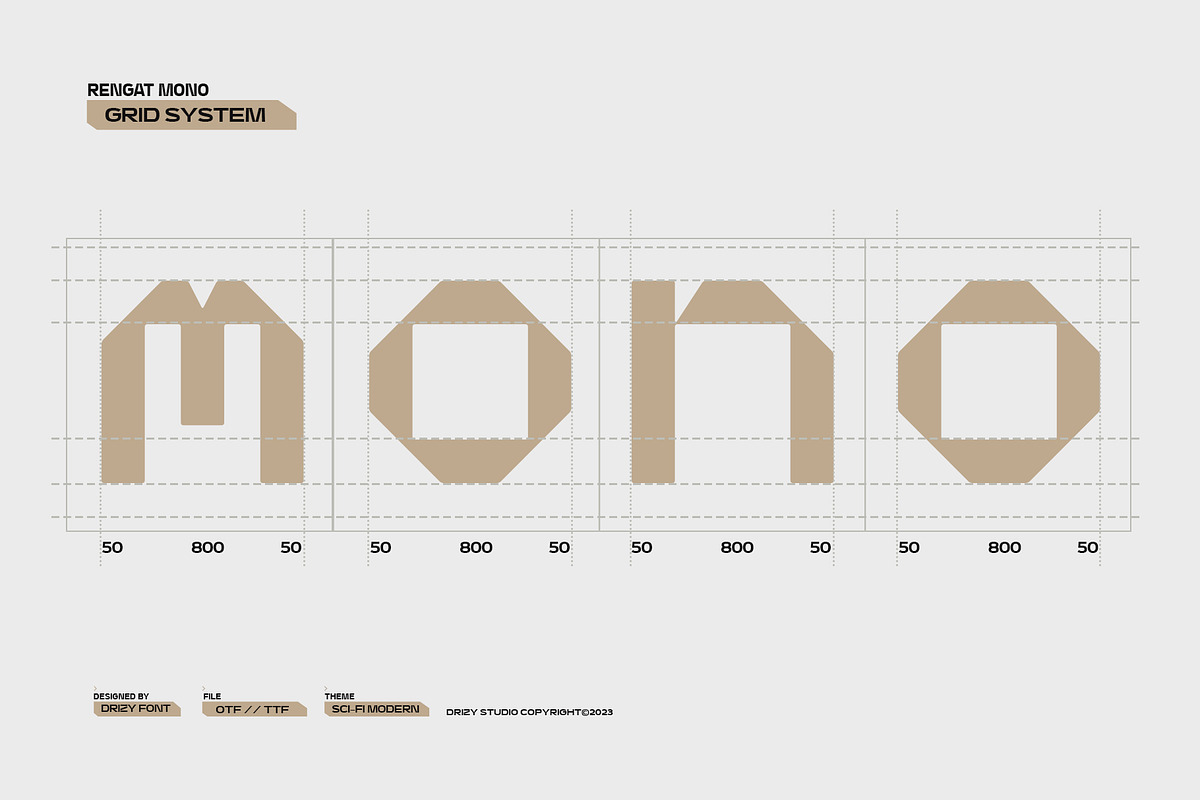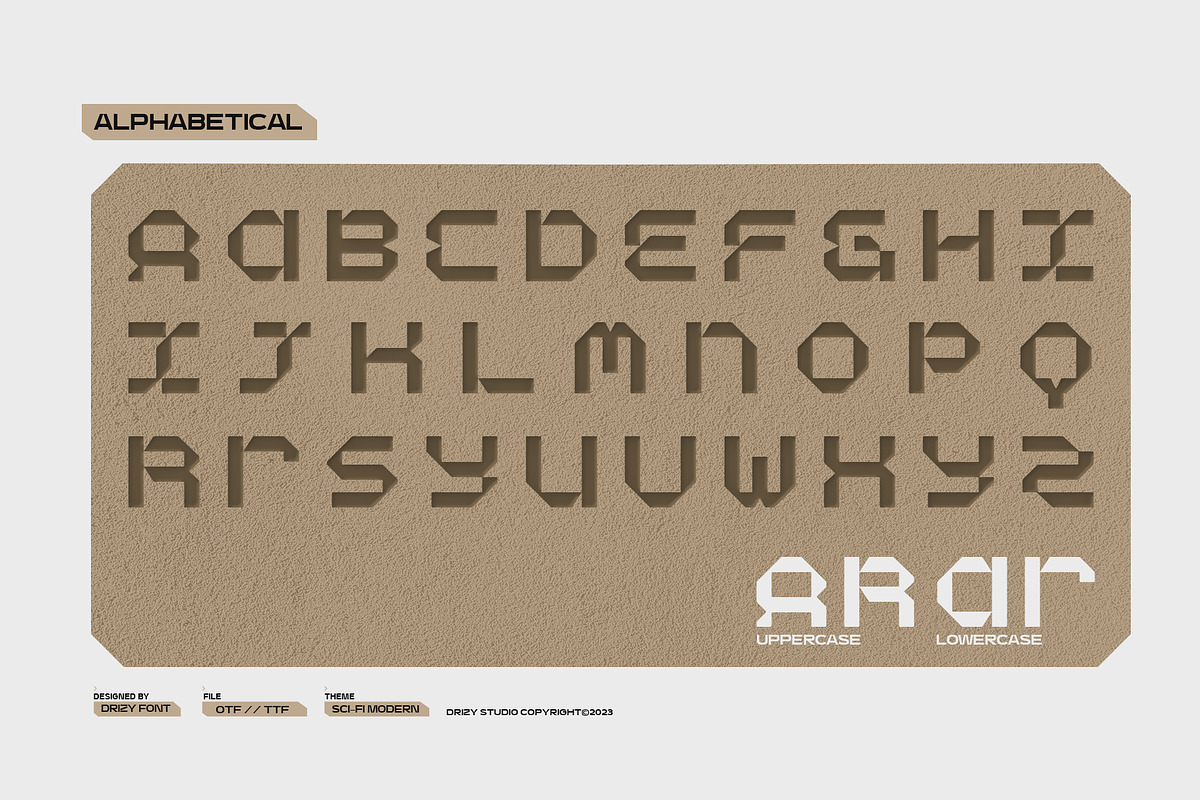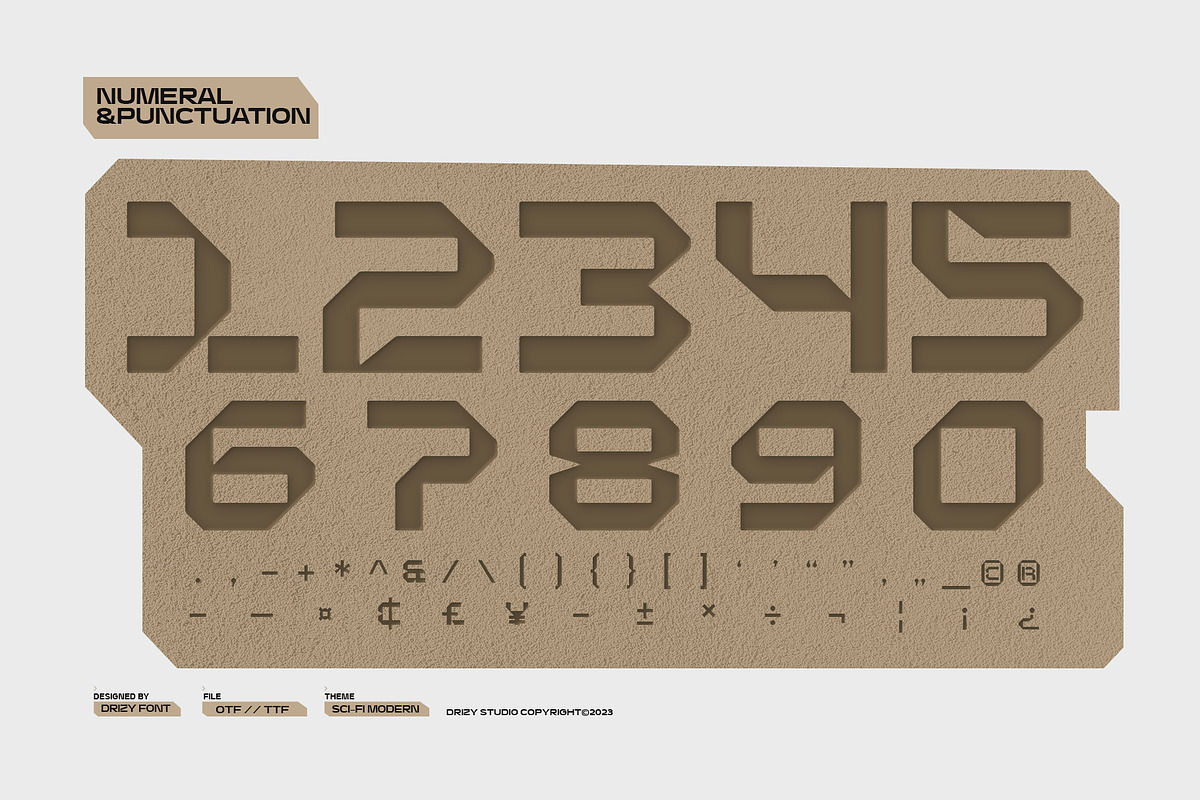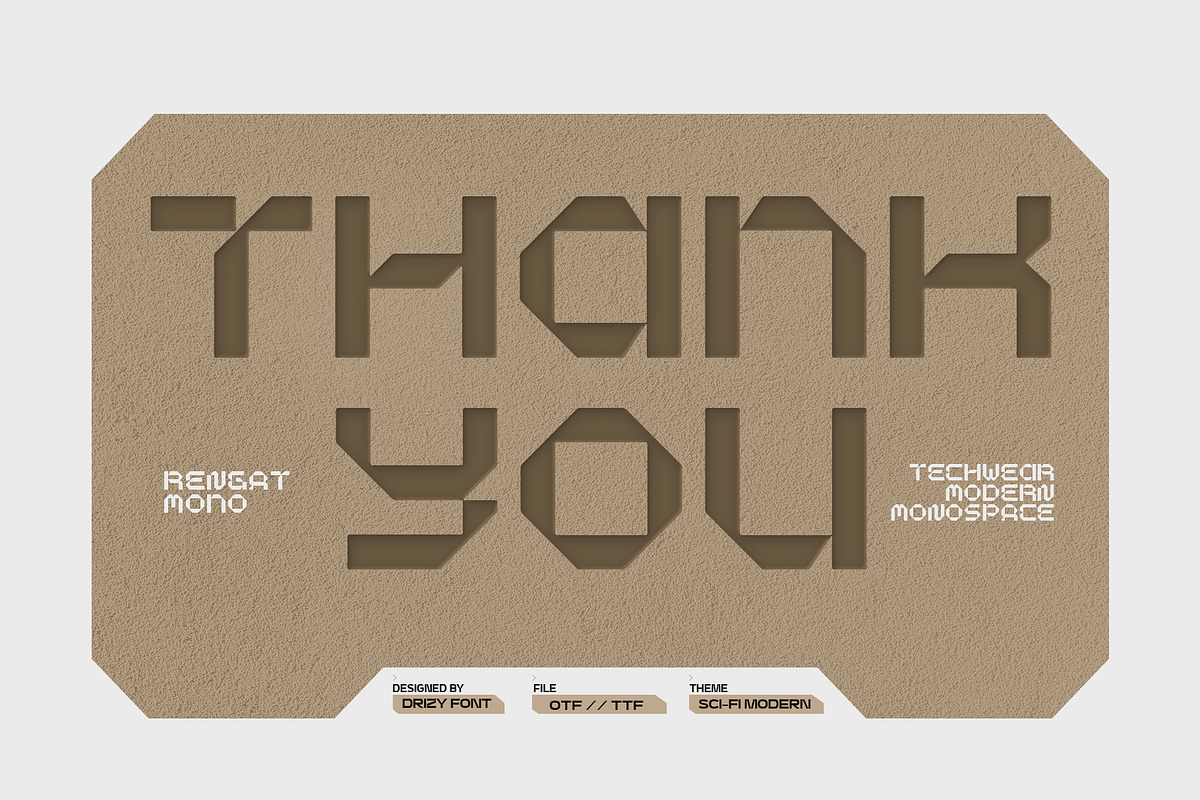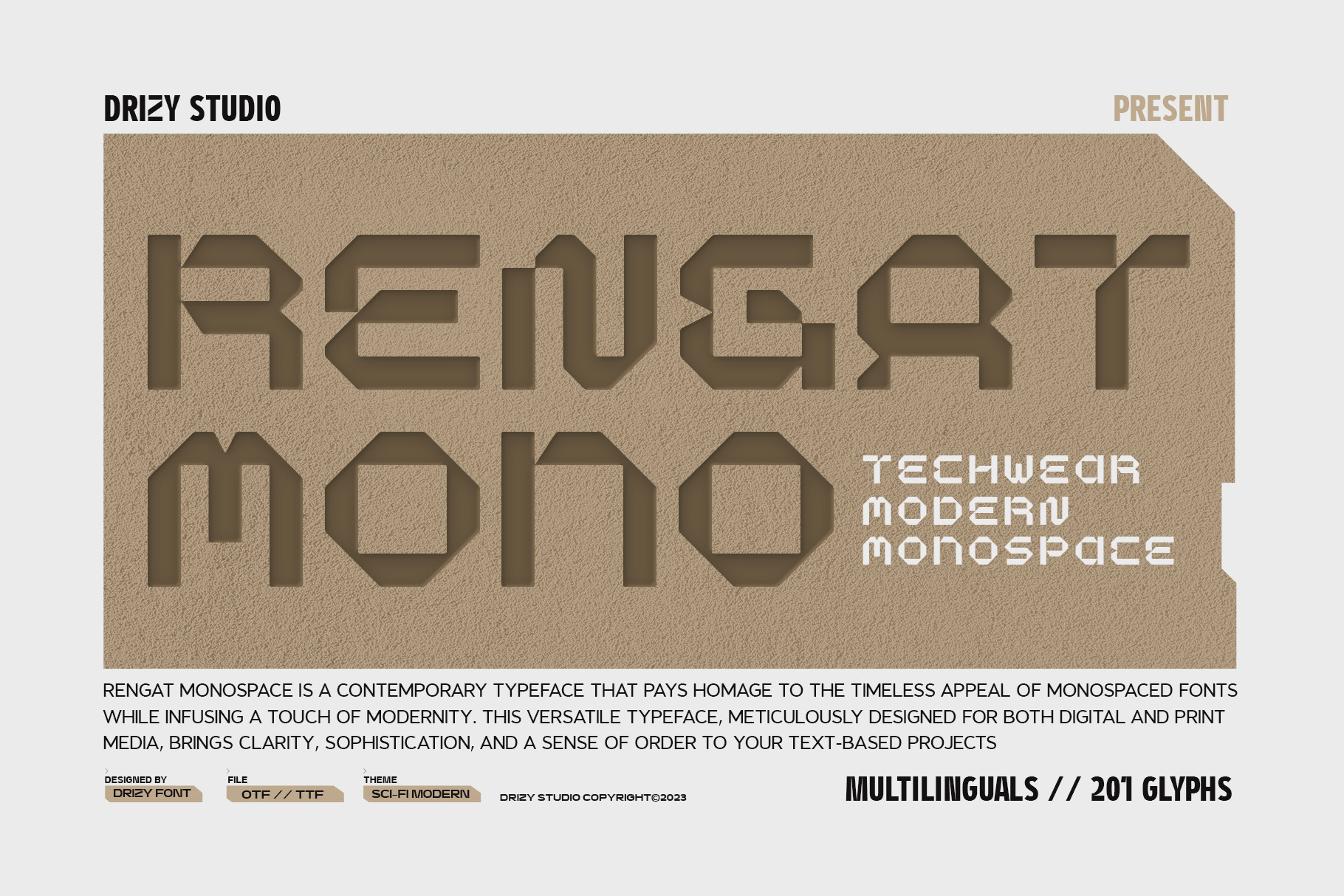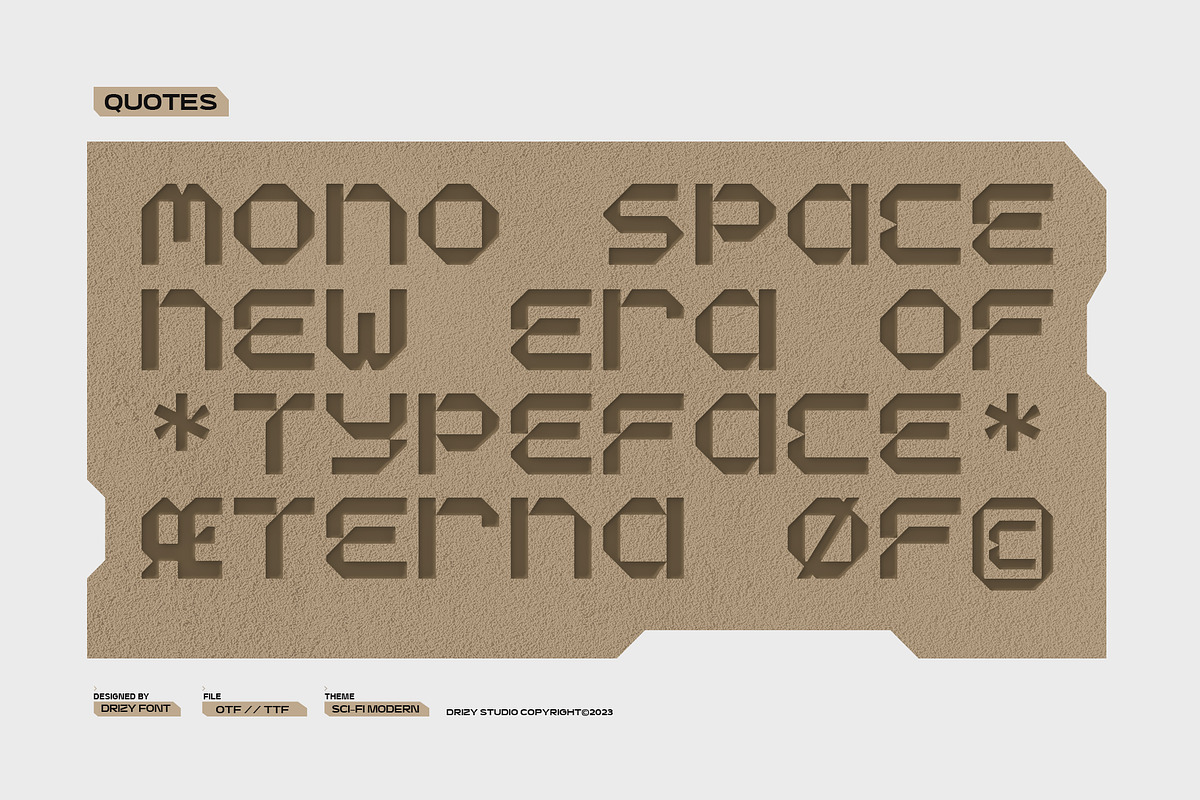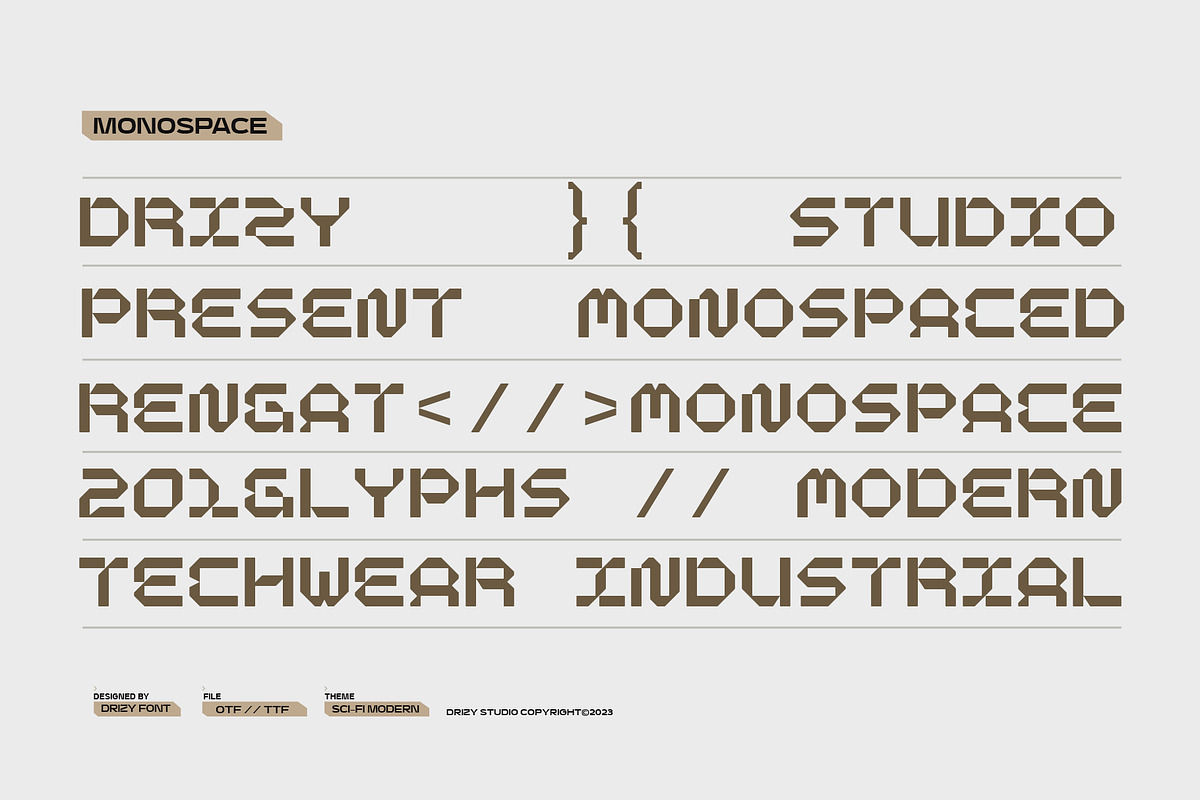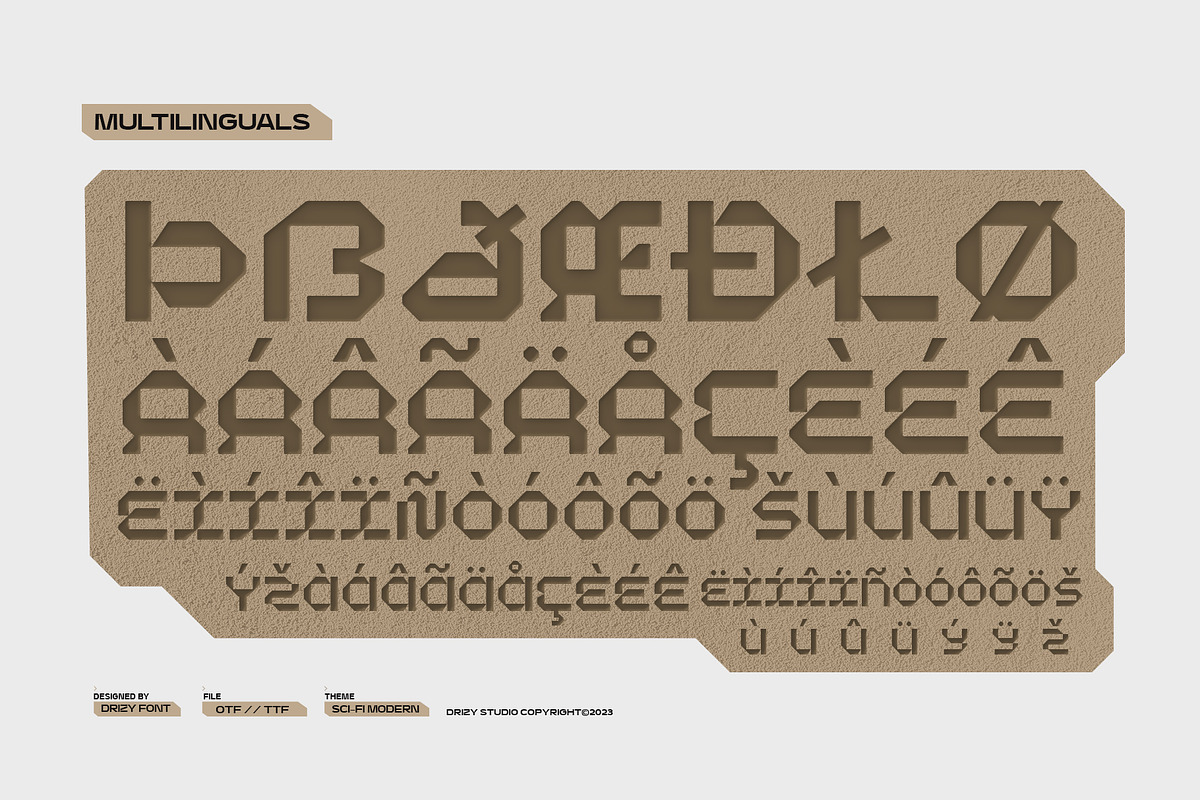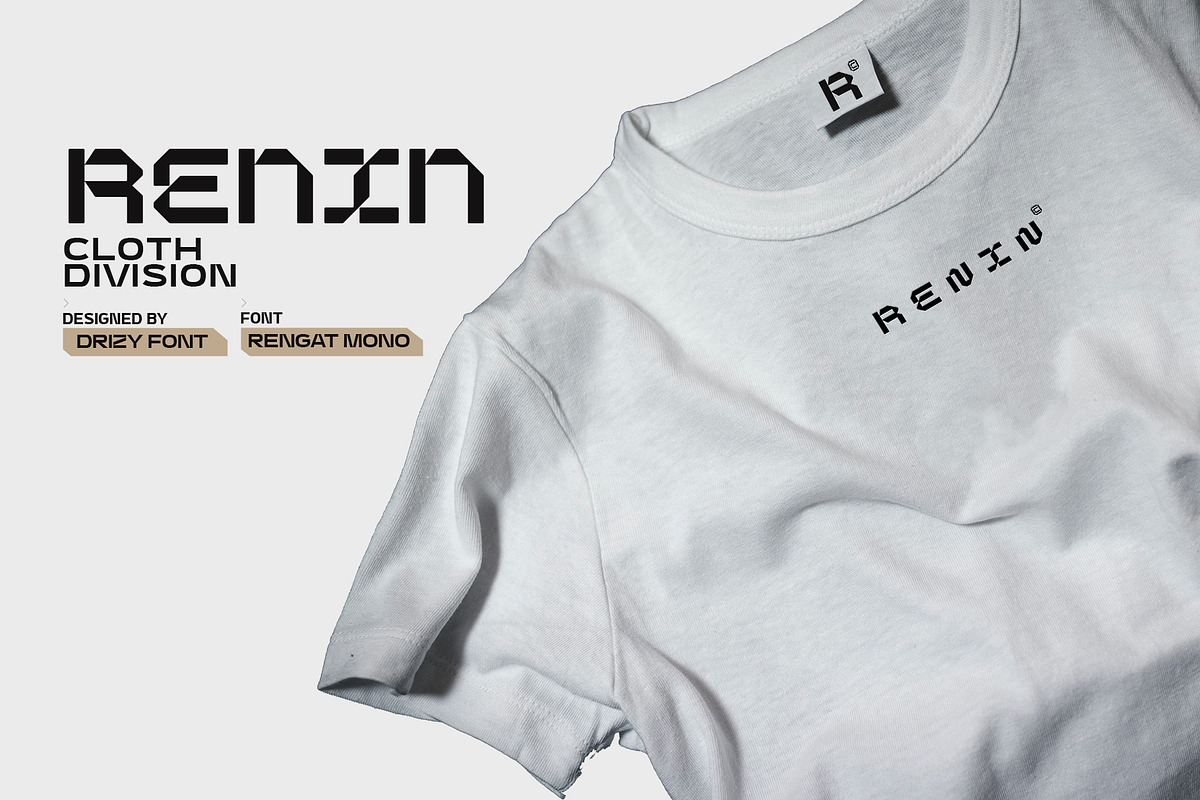
Rengat Mono - Modern Monospace Font
Introducing, Rengat Mono, it is a cutting-edge and futuristic typeface specifically designed to complement the sleek and minimalist aesthetic of techwear. This font exudes a sense of technological sophistication and urban functionality, making it an ideal choice for brands, logos, and designs within the techwear industry.